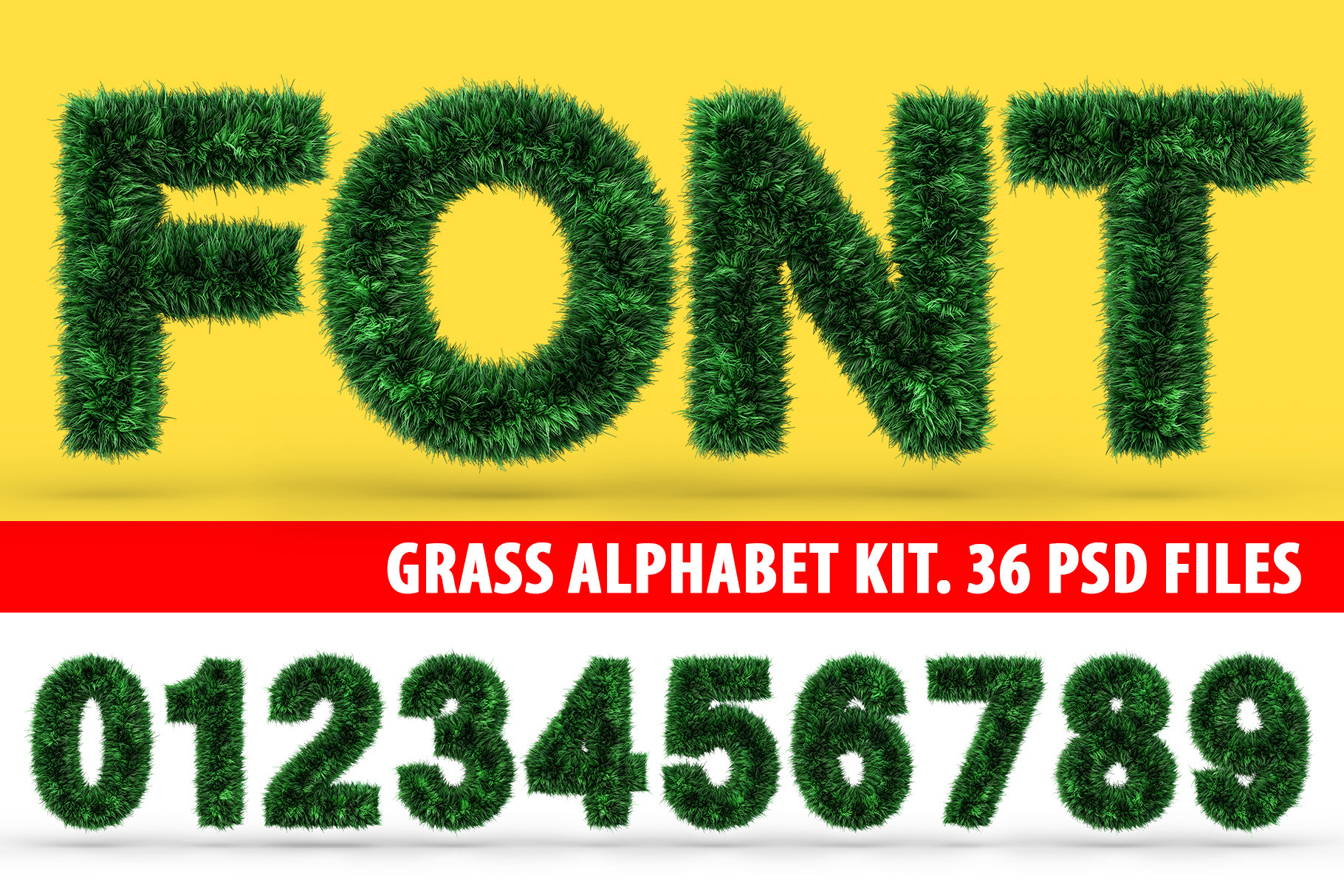
Uppercase GRASS, green font
Uppercase font made of grass texture for poster printing, branding, advertising. 3D rendering
Set of letters, numbers and symbols on transparent background.
A set of 36 symbols